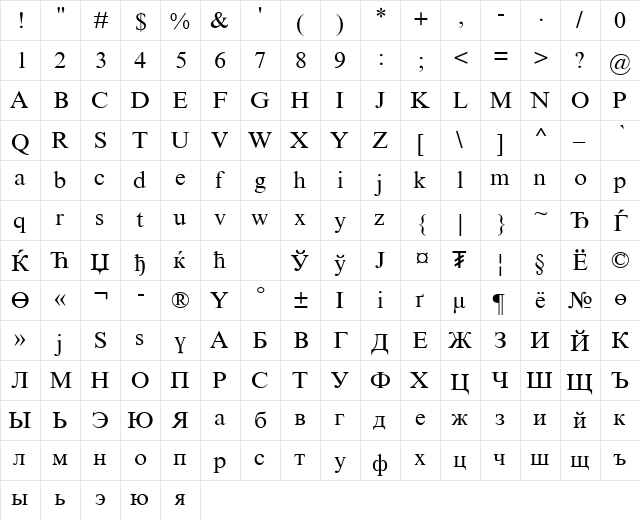
Times New Roman Mon Regular Font Preview
Times New Roman Mon Regular
Times New Roman Mon Regular Font Details
Design Context for Times New Roman Mon Typeface
Times New Roman Mon offers clean, dependable letterforms without strong stylistic allegiance, making it a practical choice for designers who need flexibility.